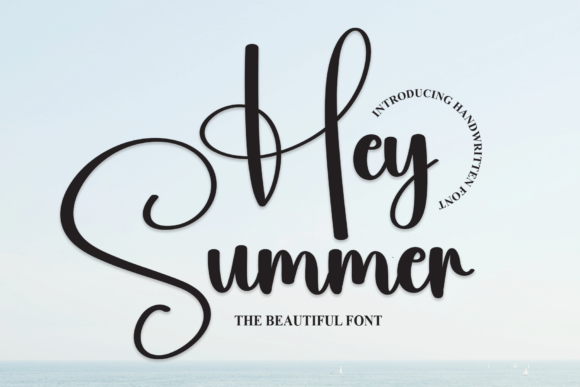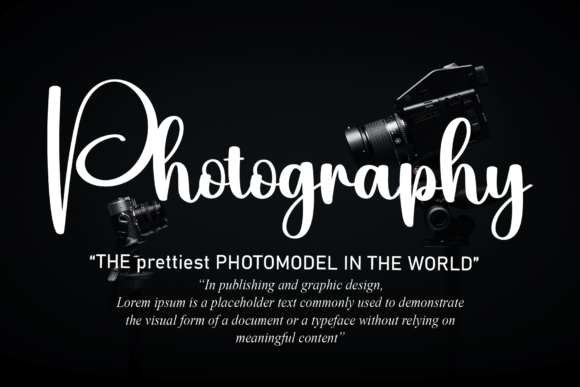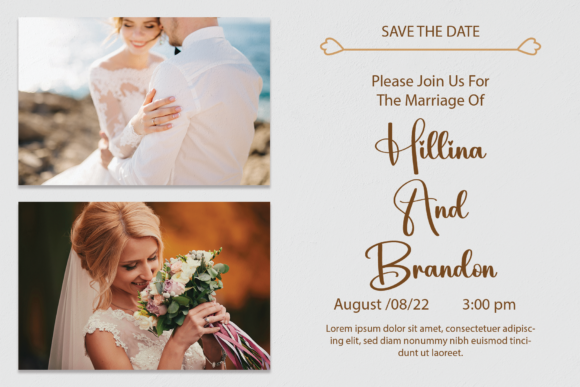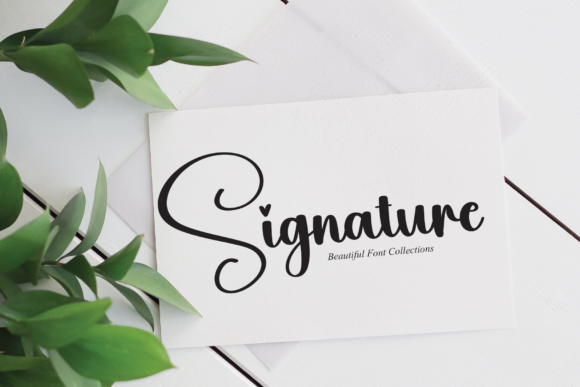
Hey Summer Font
About the Hey Summer Font
Experience the unique personality of Hey Summer Font, a font designed for impact. Hey Summer is a beautiful script font with hearts for dots and swashes. This font will radiate the romantic feeling of your design. It can be used for a wide range of applications, such as wedding design, logos, invitations, social media posts, and others.
Hey Summer’s playful, romantic style makes it ideal for branding projects emphasizing warmth and affection, particularly those related to weddings, events, or lifestyle brands targeting a young female demographic. It excels in short headlines, logos, and social media graphics where its charming details shine. However, its decorative nature makes it unsuitable for body text or UI elements requiring high readability.
Consider pairing Hey Summer with a clean sans-serif like Montserrat for a balanced contrast, or a classic serif font like Playfair Display for a more sophisticated feel. For a more modern touch, a geometric sans-serif such as Futura could work well. Avoid pairing it with other highly decorative fonts to prevent visual clutter.
The font’s overall personality is undeniably romantic and cheerful, but its legibility is best suited for display purposes rather than extended reading.
Hey Summer Font Usage Examples
Hey Summer Font Example